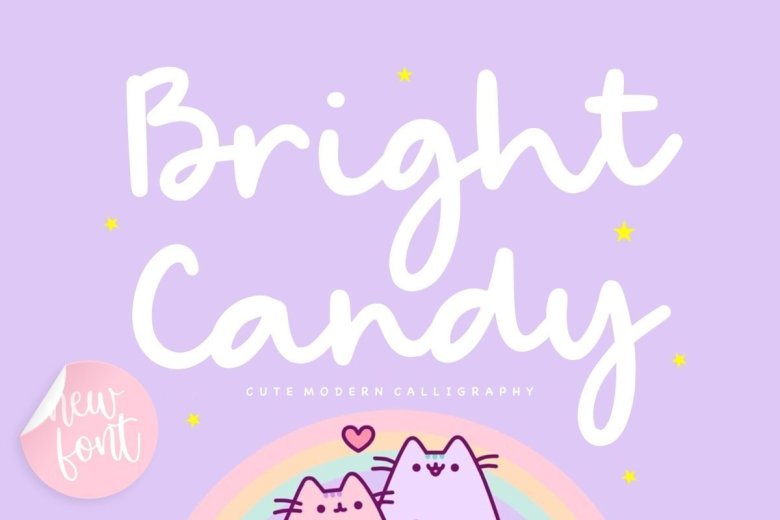
Bright Candy Bold Handwritten Font
Bright Candy is a cute modern bold handwritten script font, It is perfect for product packaging, branding project, magazine, social media, wedding, or just used to express words above the background.